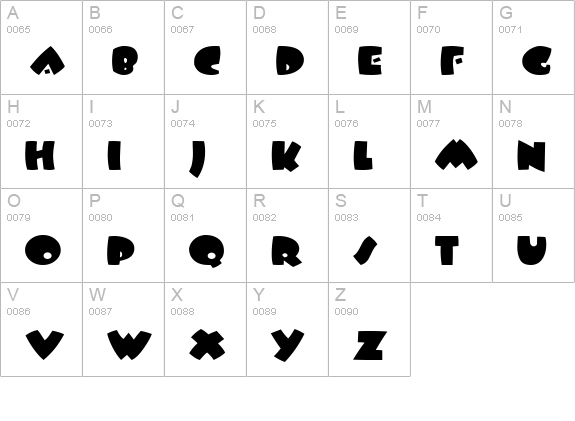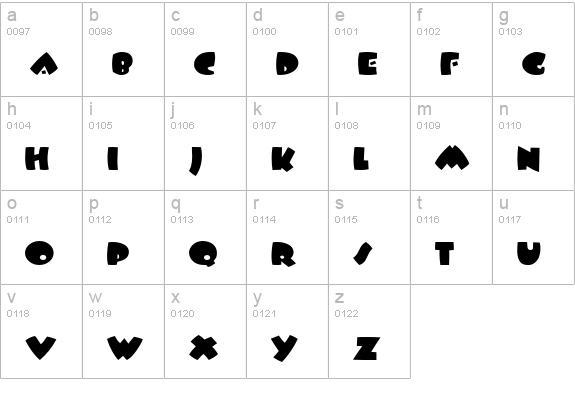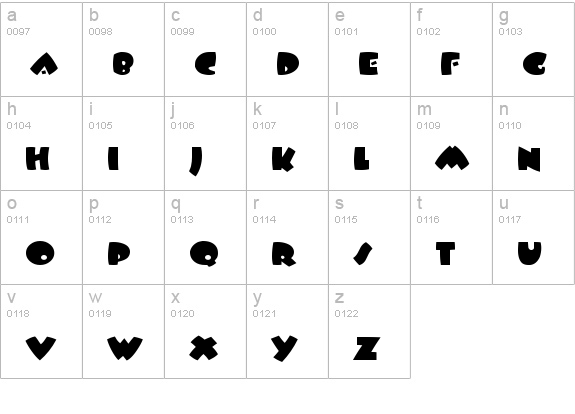
WampumExtended Normal Font Details
WampumExtended Normal is the standard, neutral variant in the WampumExtended typeface family \xE2\x80\x94 well suited to general body text, paragraphs, and standard typographic work.
WampumExtended Normal font is a visually stunning typeface that encompasses elegance and modernity. With its clean lines and smooth contours, this font is perfect for a wide range of design projects. Whether you are creating a sleek logo, stylish headings, or captivating body text, WampumExtended Normal font will effortlessly elevate your designs to the next level. What sets this font apart is not only its aesthetic appeal but also its accessibility. WampumExtended Normal font is freely available to download at FontsMarket.com, making it an excellent choice for both professional designers and enthusiasts alike. No need to worry about breaking the bank or sacrificing quality – this font offers the best of both worlds. In addition to its stunning visual qualities, WampumExtended Normal font also boasts excellent legibility, ensuring that your message is conveyed with clarity and impact. Its versatile nature allows it to seamlessly adapt to various design styles and themes, making it an incredibly versatile asset in your typographic toolbox. Whether you are working on a personal project, a client's brand identity, or a marketing campaign, WampumExtended Normal font will undoubtedly leave a lasting impression. Its timeless appeal, combined with its accessibility, sets it apart from other fonts on the market. Discover the endless creative possibilities that await you with WampumExtended Normal font – available for free download at FontsMarket.com.